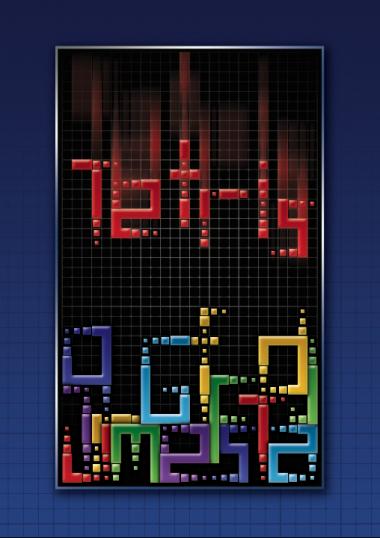
• Created around the use of 4 different sized blocks, has a strong sense of pixel font, while the added variations in the pixel sizes creates a focus trick. Unsuitable for very small size and for long texts.
Nice retro!
I'm likin' it more and more.
I like the way it shifts in and out of focus in pixel preview. I see there are two votes now. I can't think why this font is being passed over. Wakey wakey!
Here's the poster I created as part of the college work around the creation of the font.